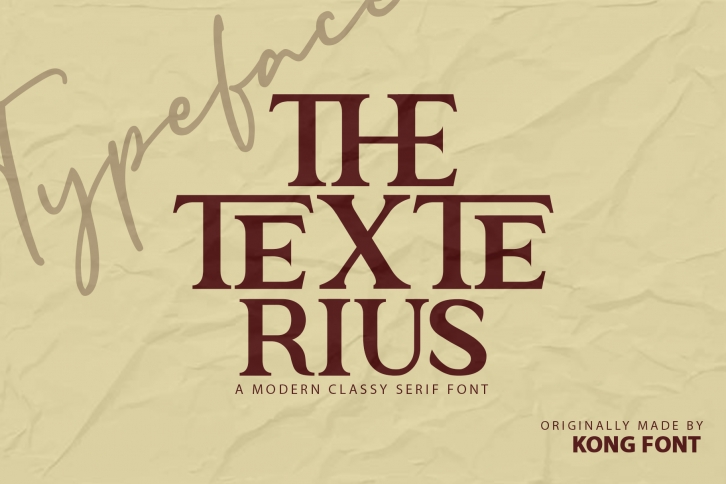
The Texterius is a modern and classy serif font. It’s great for crafters and designers. Compatible with tools such as Photoshop and Silhouette design studio.